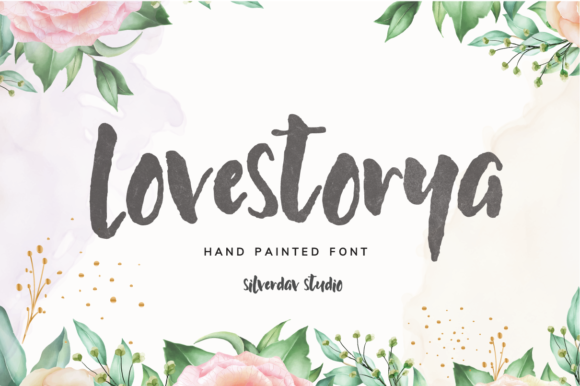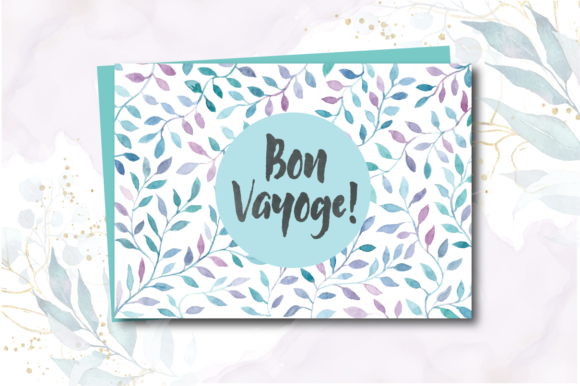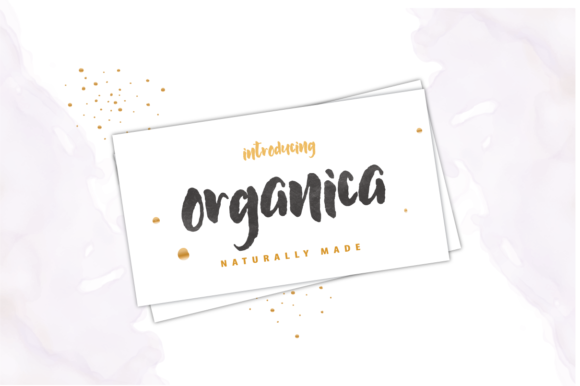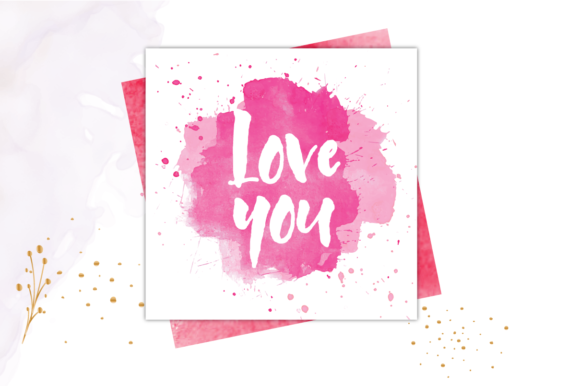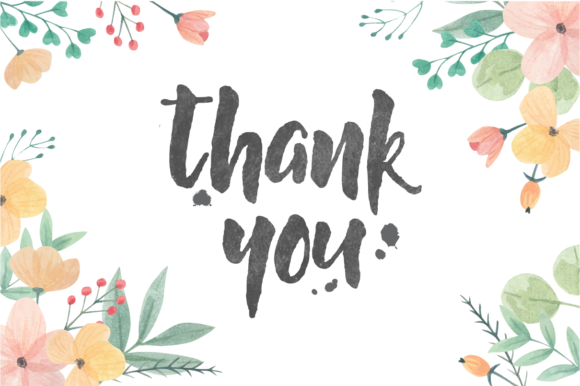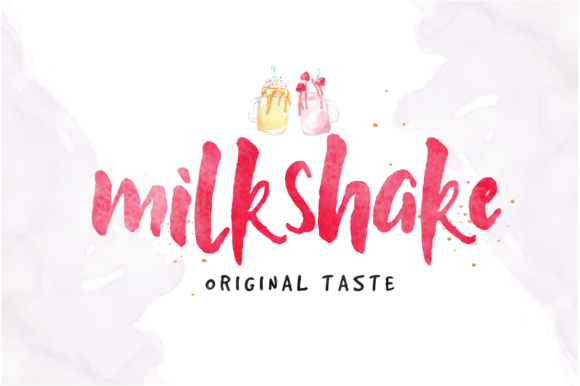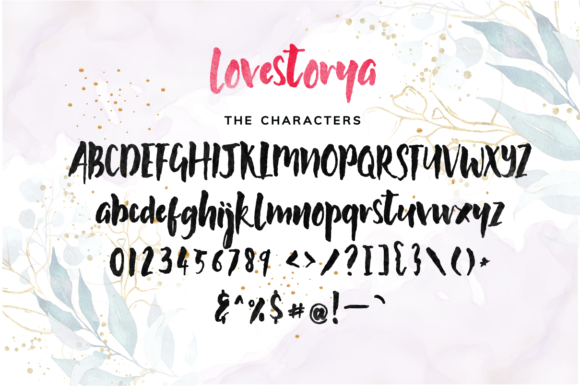
Love Storya Font
About Love Storya Font
Love Storya is a casual, fun handwritten font, created by using a brush pen. Whether you’re looking for fonts for Instagram or calligraphy scripts for DIY projects, this font will turn any creative idea into a true piece of art!